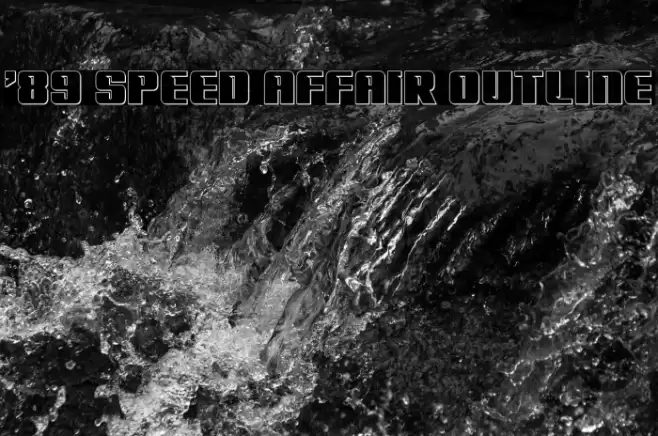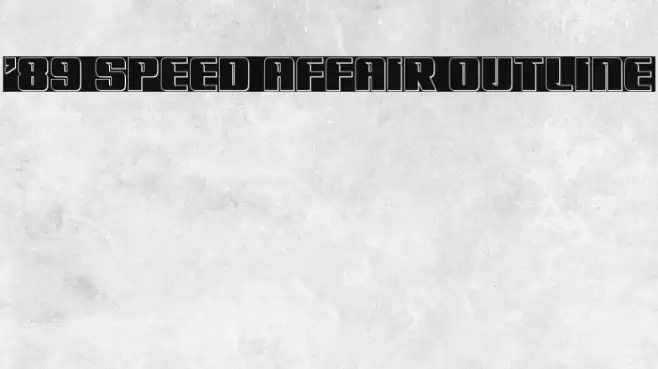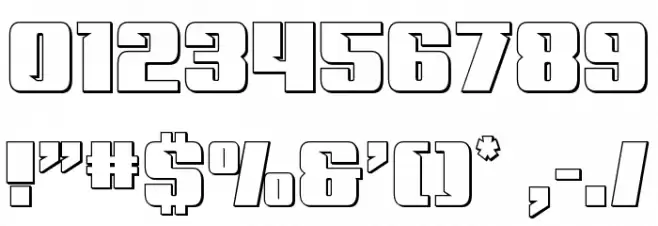
'89 Speed Affair Outline Font
'89 Speed Affair Outline Description
This font features a bold, geometric outline style with a modern and futuristic aesthetic. The characters are constructed with sharp angles and straight lines, giving them a structured and mechanical appearance. The outline design creates a hollow effect, making the letters appear both solid and airy. This font is highly legible and stands out due to its unique and striking design. It is ideal for projects that require a bold statement or a tech-inspired look. The uniformity in the design ensures consistency across all characters, maintaining a cohesive visual impact.
A bold, geometric outline font with a modern, futuristic style from Regular fonts.
- Proposed Projects: Ideal for technology branding, sports team logos, video game titles, and futuristic-themed posters.